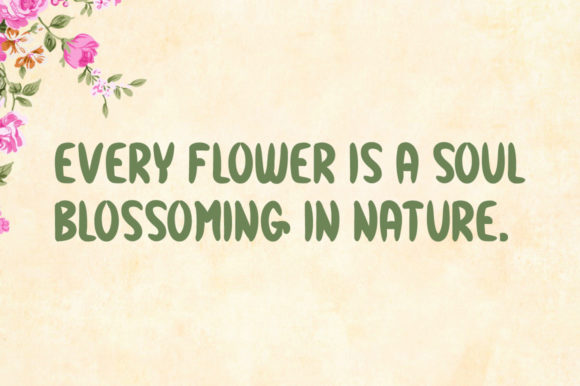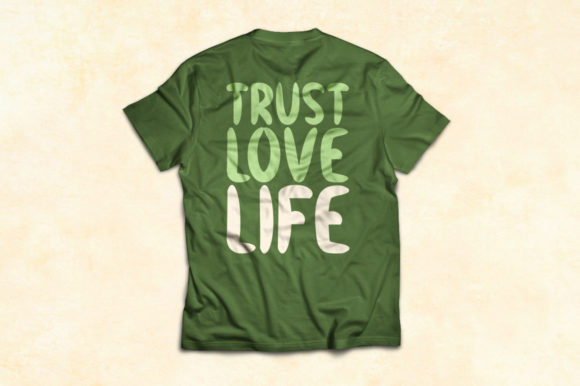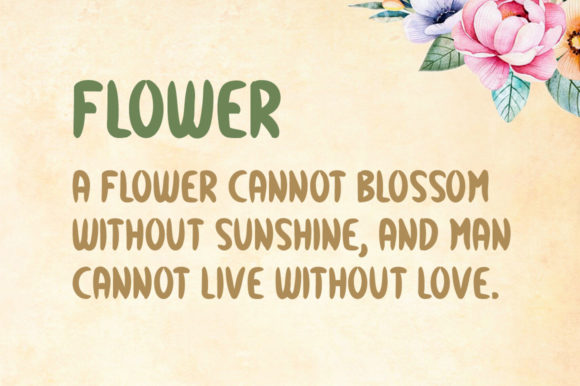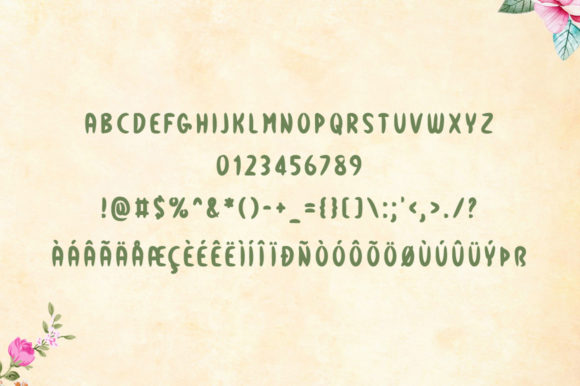
Introducing Dendritic Font: Adding a Playful Touch to Your Designs
In the world of typography, fonts play a crucial role in conveying the tone and personality of a design. If you’re a designer or crafter looking for a unique and playful font to elevate your projects, look no further than Dendritic Font. This striking display font is perfect for adding a fun touch to your designs, making it an excellent choice for a wide range of applications.
The Characteristics of Dendritic Font
So, what makes Dendritic Font so special? For starters, its rounded corners give it a playful feel that’s hard to resist. This distinctive feature sets it apart from other fonts and makes it perfect for designs that require a lighthearted and approachable tone. Whether you’re working on a logo, stationery, or website header, Dendritic Font is sure to make a lasting impression.
Perfectly Suited for a Variety of Applications
Dendritic Font is an incredibly versatile font that can be used in a multitude of design projects. Here are some of the many applications where it shines:
• Stationery: Add a playful touch to your business cards, letterheads, and invoices with Dendritic Font.
• Logos: Create a memorable and fun logo for your brand that stands out from the crowd.
• T-shirts and apparel: Design eye-catching and comfortable tees, hoodies, and other clothing items with Dendritic Font.
• Papers and print designs: Use Dendritic Font to add a pop of personality to your brochures, catalogs, and other print materials.
• Website headers: Create a striking header for your website that sets the tone for your brand.
• Photo frames and posters: Add a fun and creative touch to your photo frames, posters, and other visual displays.
• Flyers and music covers: Design attention-grabbing flyers and music covers that showcase your artistic side.
• Image sliders and more: Use Dendritic Font to add a playful touch to your image sliders, social media graphics, and other design projects.
Why Choose Dendritic Font?
With so many fonts available, why choose Dendritic Font? Here are just a few reasons why designers and crafters love this font:
• Unique and playful: Dendritic Font offers a distinctive and lighthearted feel that’s perfect for designs that require a fun touch.
• Versatile: This font can be used in a wide range of applications, from stationery to website headers.
• Easy to read: Despite its playful feel, Dendritic Font is easy to read and understand, making it perfect for designs that require clear communication.
Tips for Using Dendritic Font
To get the most out of Dendritic Font, here are some tips to keep in mind:
• Use it sparingly: While Dendritic Font is perfect for adding a playful touch, it’s best to use it sparingly to avoid overwhelming your design.
• Pair it with other fonts: Experiment with pairing Dendritic Font with other fonts to create a unique and visually appealing design.
• Adjust the size and color: Play around with different sizes and colors to find the perfect combination for your design.
In conclusion, Dendritic Font is a striking display font that’s perfect for adding a playful touch to your designs. With its rounded corners and versatile nature, it’s an excellent choice for a wide range of applications. Whether you’re a designer or crafter, Dendritic Font is sure to become a favorite in your font collection. So why not give it a try and see how it can elevate your designs?